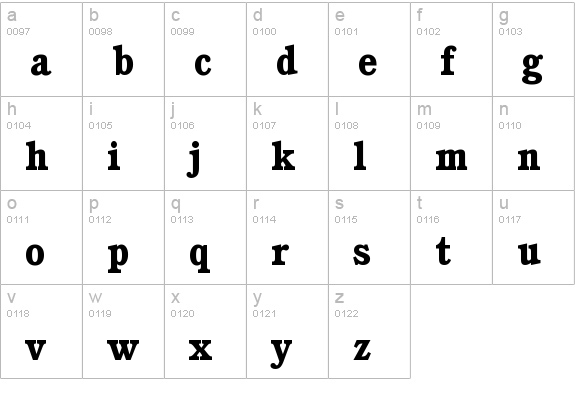
CalgarySerial-Bold is a strong, high-contrast variant in the CalgarySerial typeface family \xE2\x80\x94 well suited to headlines, attention-grabbing titles, and strong calls-to-action.
CalgarySerial-Bold is a modern and stylish font that exudes confidence and sophistication. With its bold and impactful letterforms, this typeface is perfect for making a statement in headlines, titles, and branding materials. The strong, clean lines of CalgarySerial-Bold give a sleek and professional look to any design project. What sets CalgarySerial-Bold apart is not only its striking appearance but also its versatility. Whether used in print or digital media, this font commands attention and conveys a sense of authority. Its bold weight ensures readability even at smaller sizes, making it ideal for a wide range of applications. And the best part? CalgarySerial-Bold is available for free download at FontsMarket.com. So, designers and creatives can easily access this high-quality font to elevate their projects without breaking the bank. Don't miss out on the opportunity to add CalgarySerial-Bold to your font library and enhance your designs with its bold and impactful presence.